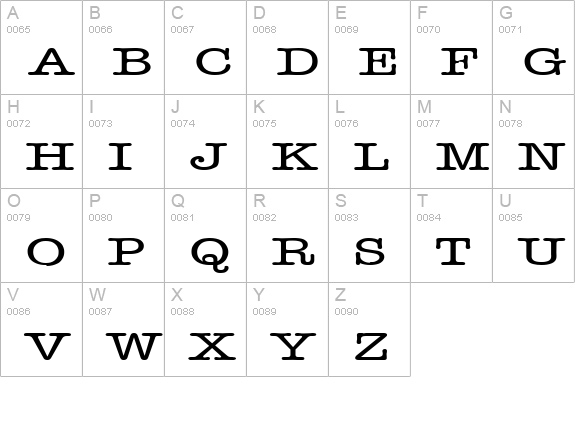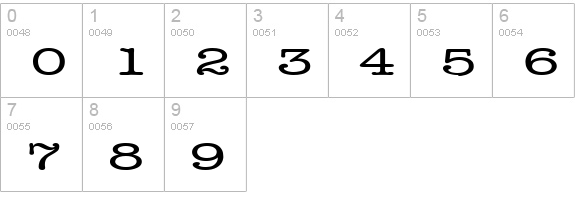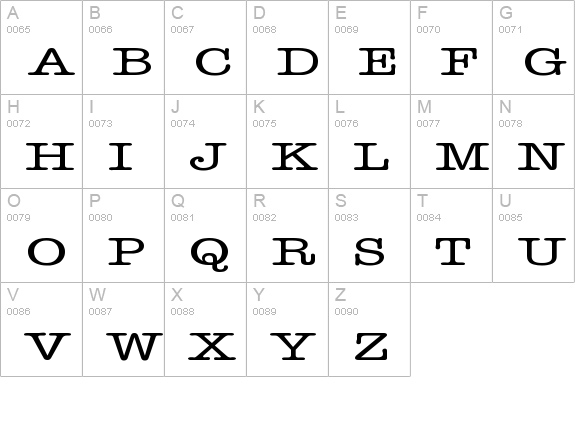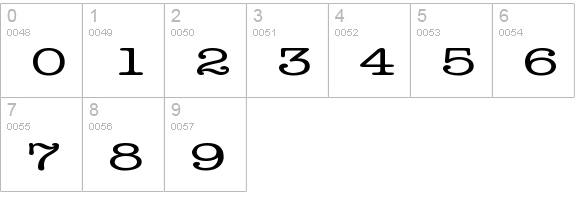
Headline Extended Normal Font Details
Headline Extended Normal is the standard, neutral, extended-width variant in the Headline typeface family \xE2\x80\x94 well suited to general body text, paragraphs, and standard typographic work.
Headline Extended Normal font is a versatile and eye-catching typeface that will surely make your designs stand out. With its clean and modern design, this font is perfect for headlines, posters, logos, and any other creative projects that require a bold and impactful look. What sets Headline Extended Normal font apart is that it is freely available to download at FontsMarket.com. Yes, you read that right – you can get this amazing font for free! Whether you are a professional designer or just starting out, having access to high-quality fonts without breaking the bank is a game-changer. Featuring extended letterforms and a balanced weight, Headline Extended Normal font ensures excellent legibility across various sizes and applications. Its sleek and elegant appearance adds a touch of sophistication to any design, making it a go-to choice for both print and digital projects. The versatility of Headline Extended Normal font extends beyond just headlines. You can also use it for subheadings, captions, and body text, creating a cohesive and visually appealing typographic hierarchy. With its wide range of glyphs and characters, you can easily adapt this font to suit your specific design needs. So, why wait? Head over to FontsMarket.com and download Headline Extended Normal font for free today. Elevate your designs and make a lasting impression with this exceptional typeface.